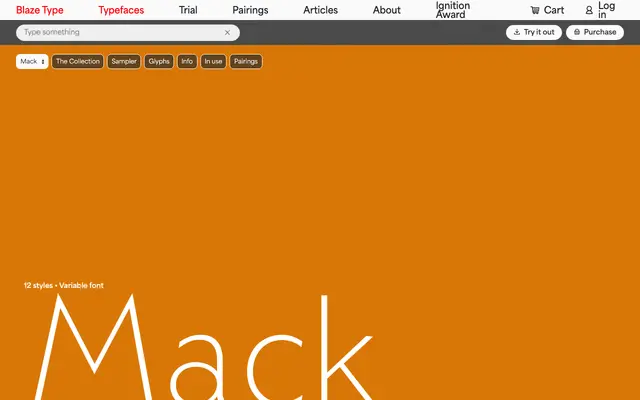
Mack
Blaze Type · Nathan Metzler, Matthieu Salvaggio · 2021
A humanist sans with geometric bones and angled, brush-influenced terminals, drawn from lettering found on a map of Mackinac Island.
Designed by Nathan Metzler and Matthieu Salvaggio and released in 2021, Mack takes the proportional structure of mid-century geometric typefaces but softens it with curves and terminals that echo the angle of a brush stroke. The spark was hand-lettering on a map of Mackinac Island, whose pointed peaks and varied proportions suggested a different direction from strict geometry. Twelve styles run from Thin to Black with matching italics, all available as a variable font.
Described explicitly as a humanist sans serif; its geometric structure is softened by angled terminals and brush-influenced curves, placing it firmly in the humanist sans category rather than strict geometric.